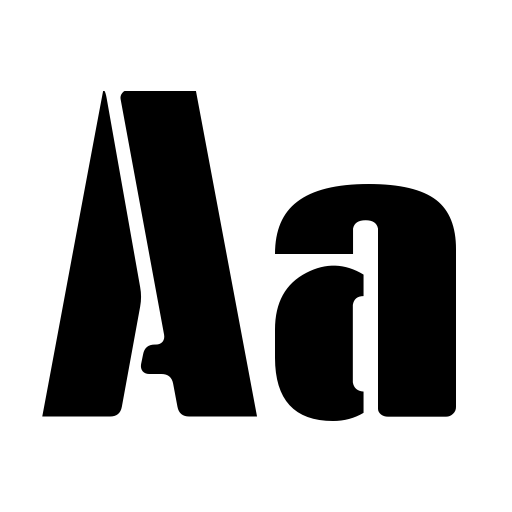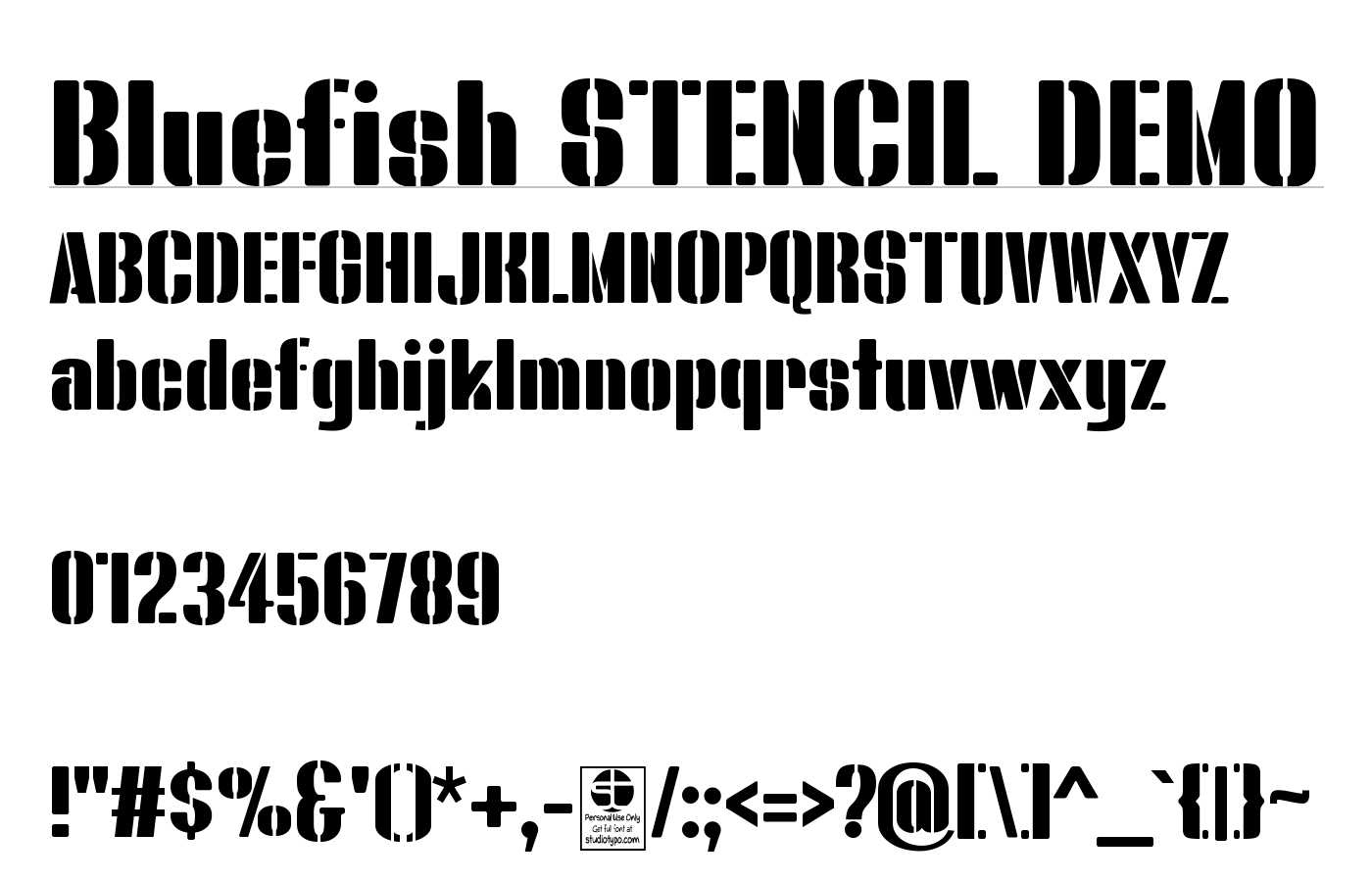
Bluefish STENCIL DEMO is a bold, stencil-style serif font featuring strong, blocky letterforms with distinct cut-out gaps that create a rugged, industrial feel. Its high contrast and condensed proportions give it a commanding presence, making it ideal for impactful headlines, posters, and branding that require a tough, utilitarian aesthetic. This font works well in contexts where a vintage military or industrial vibe is desired, lending a sense of strength and durability.
Bluefish STENCIL DEMO Font
About Bluefish STENCIL DEMO Font
| Designer | Mehmet Abacı |